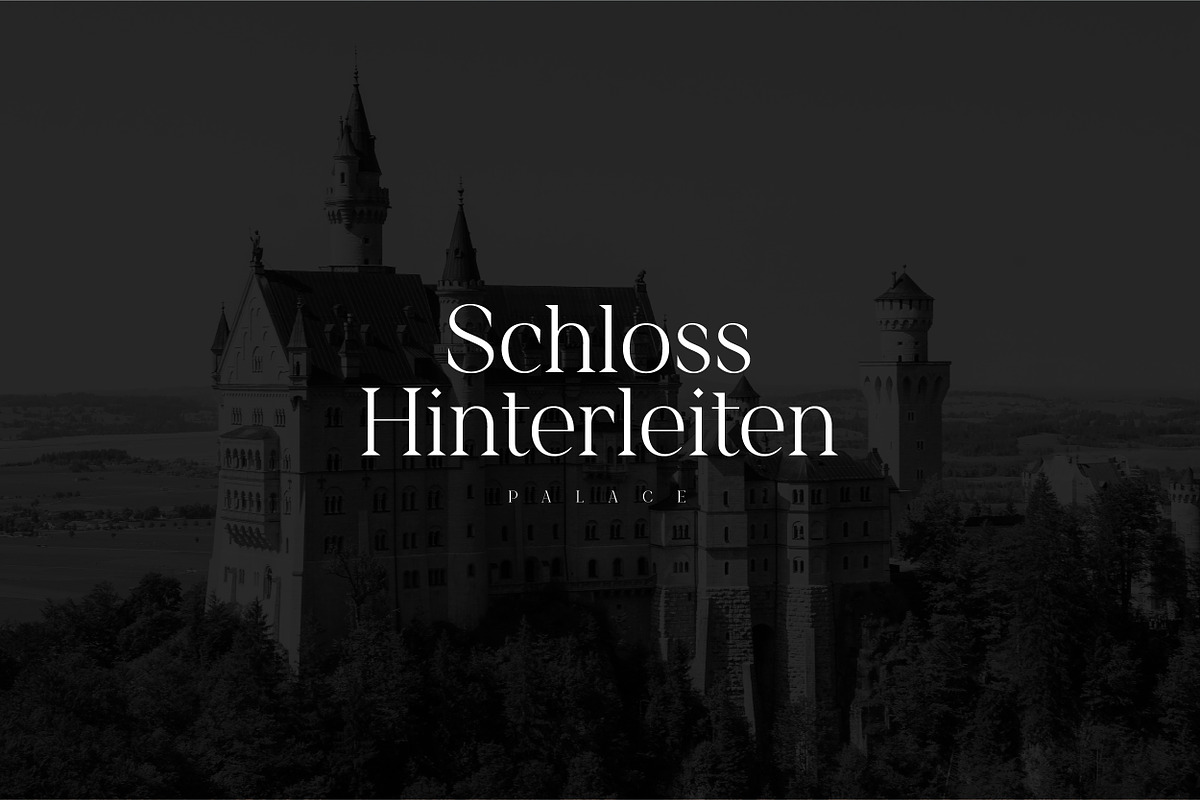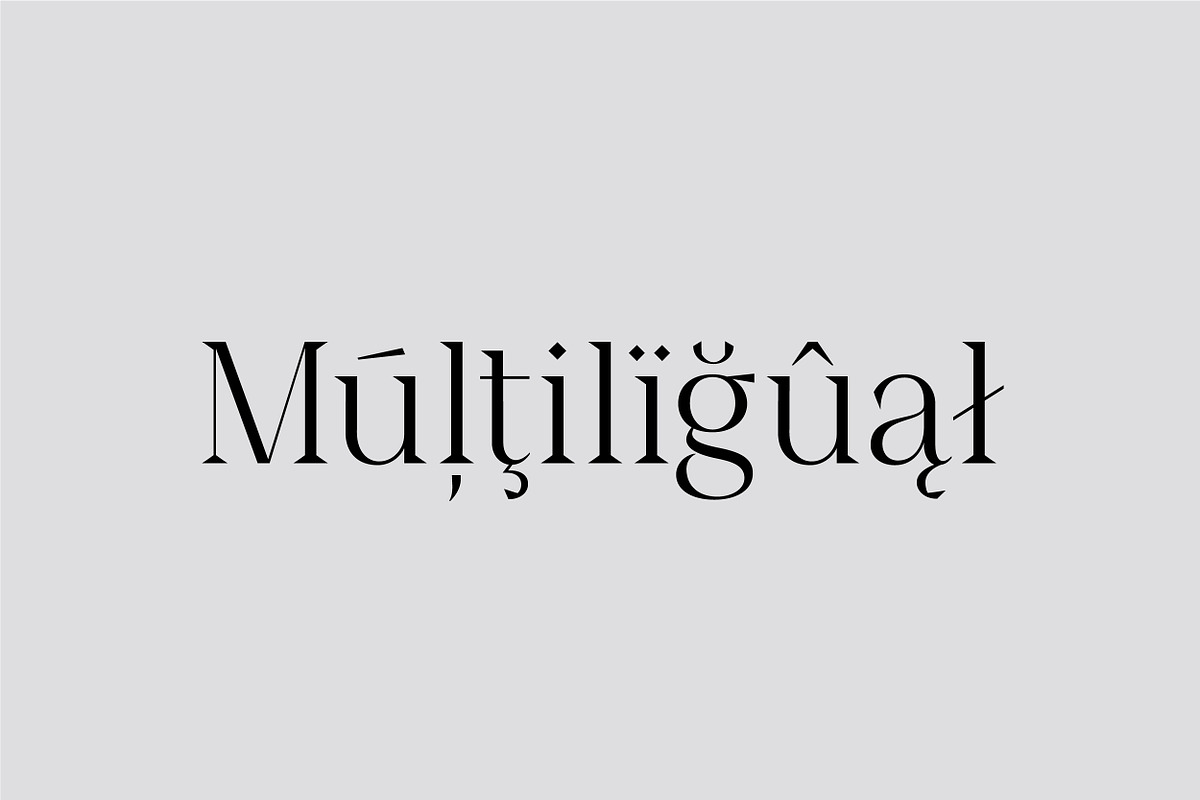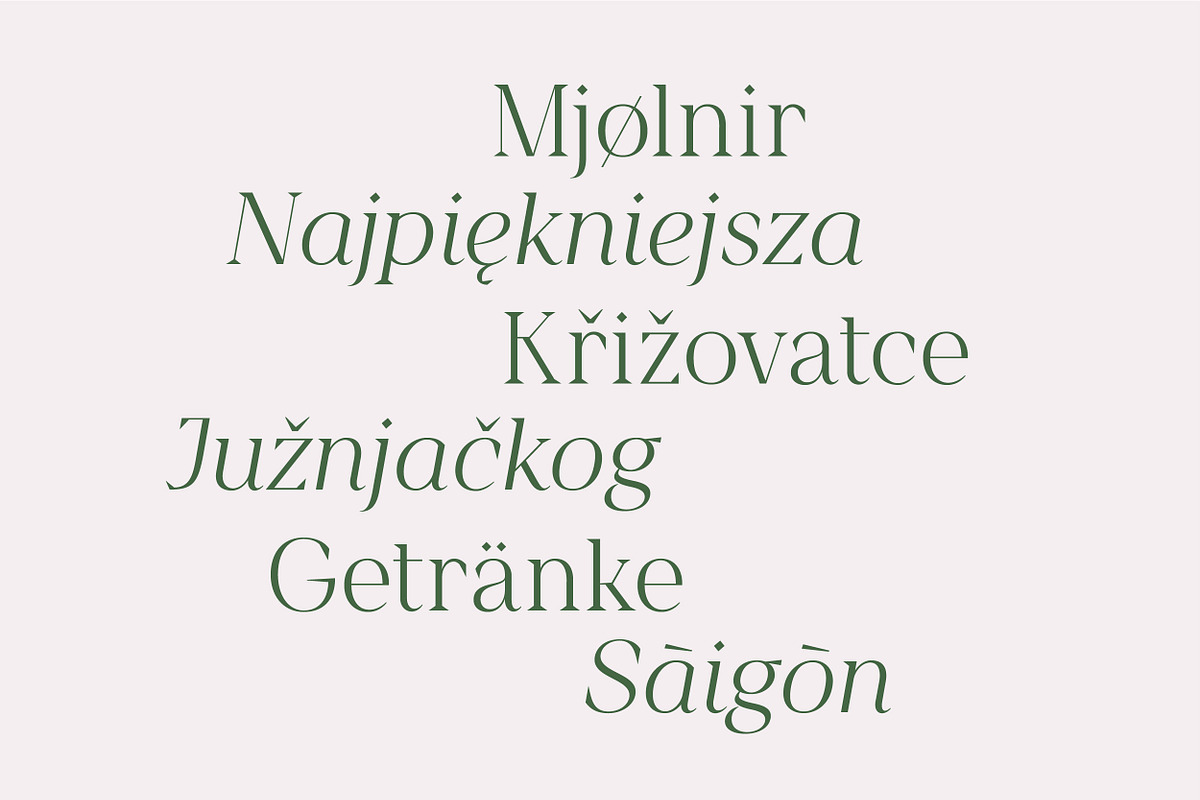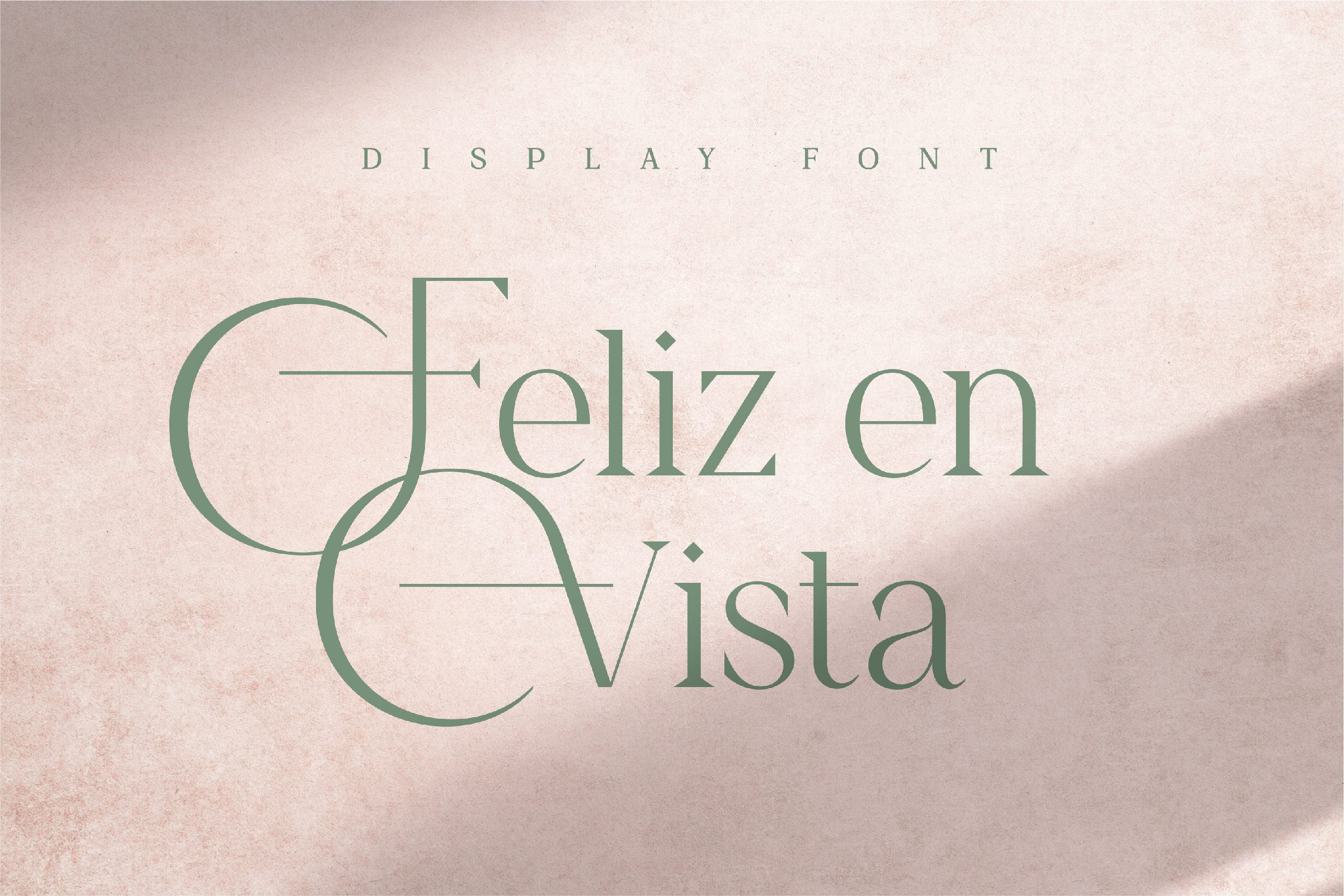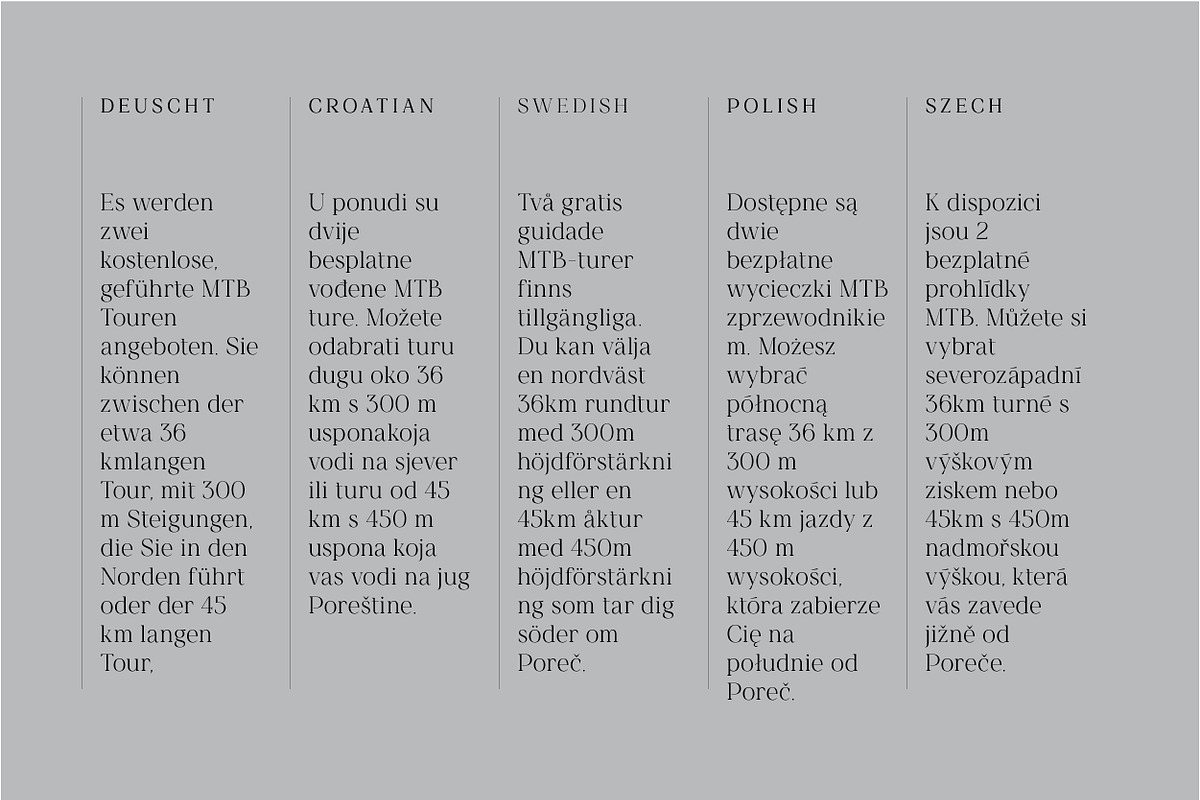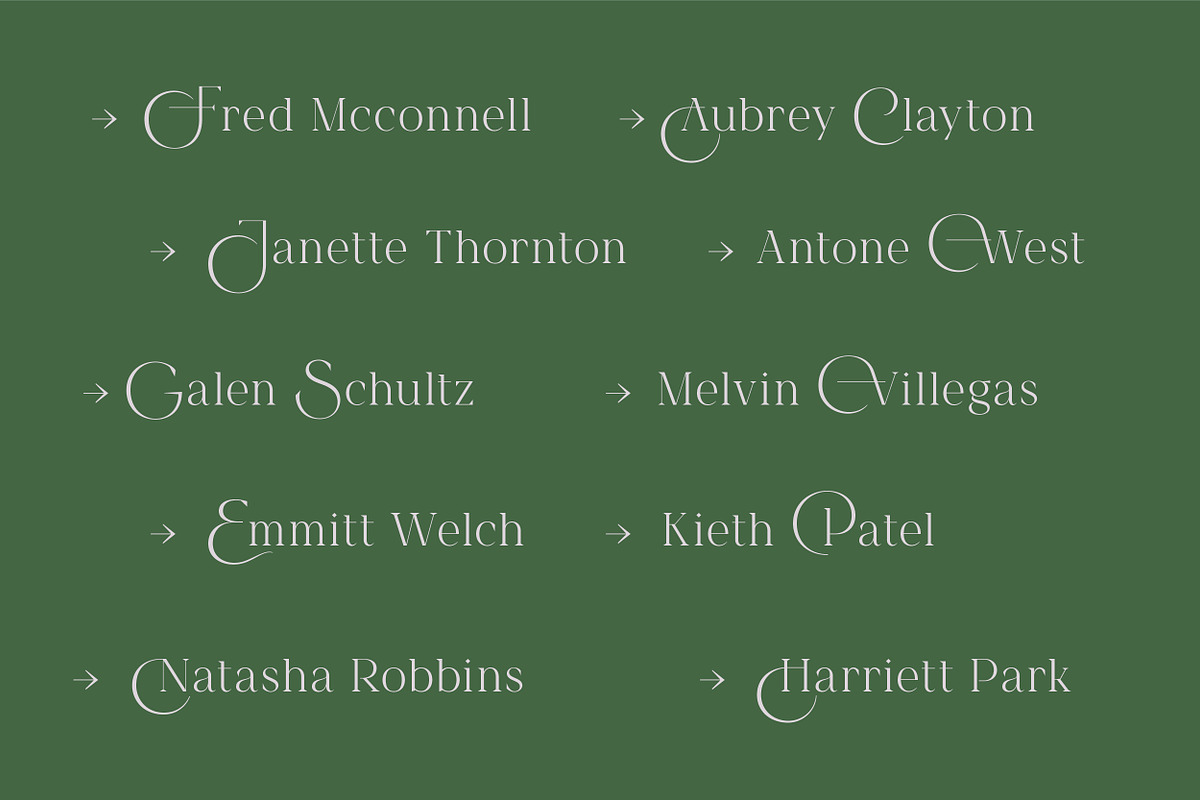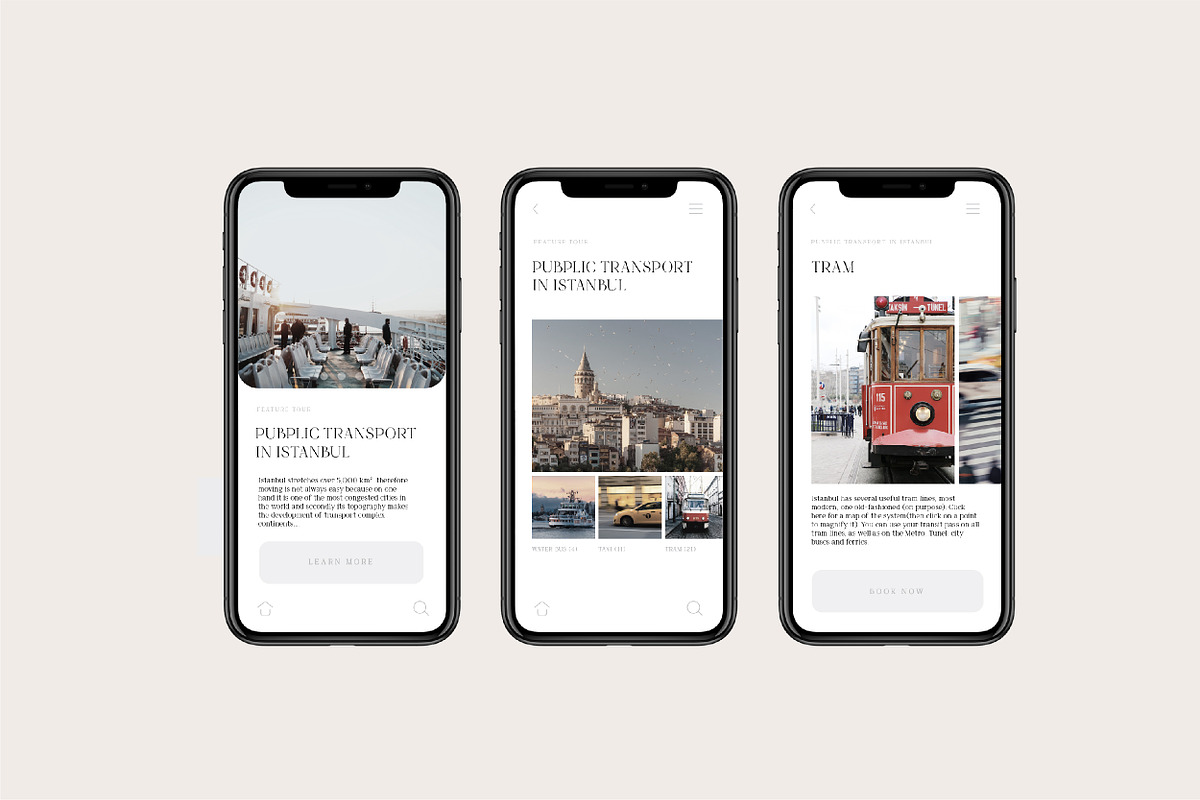
Feliz en Vista - Display Font
Feliz en Vista - a modern sefif, display typeface with beautiful uppercase lettering and a touch of fashionable look. You will be pleased to use many options of alternates and ligatures, perfectly suitable for creating nice, fashionable, lifestyle design such as logos, mashhead, title and wedding paper.
HV FELIZ EN VISTA FEATURE :
- All Europeans languages
- Vietnamese